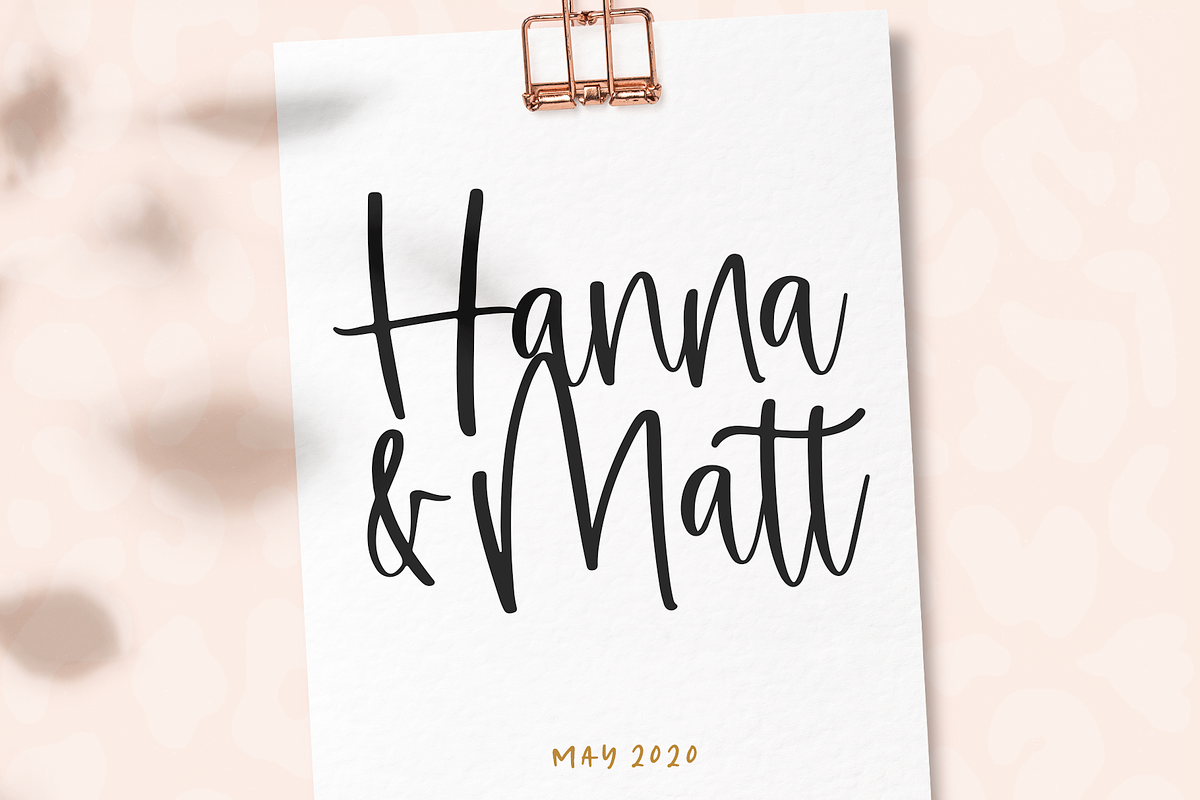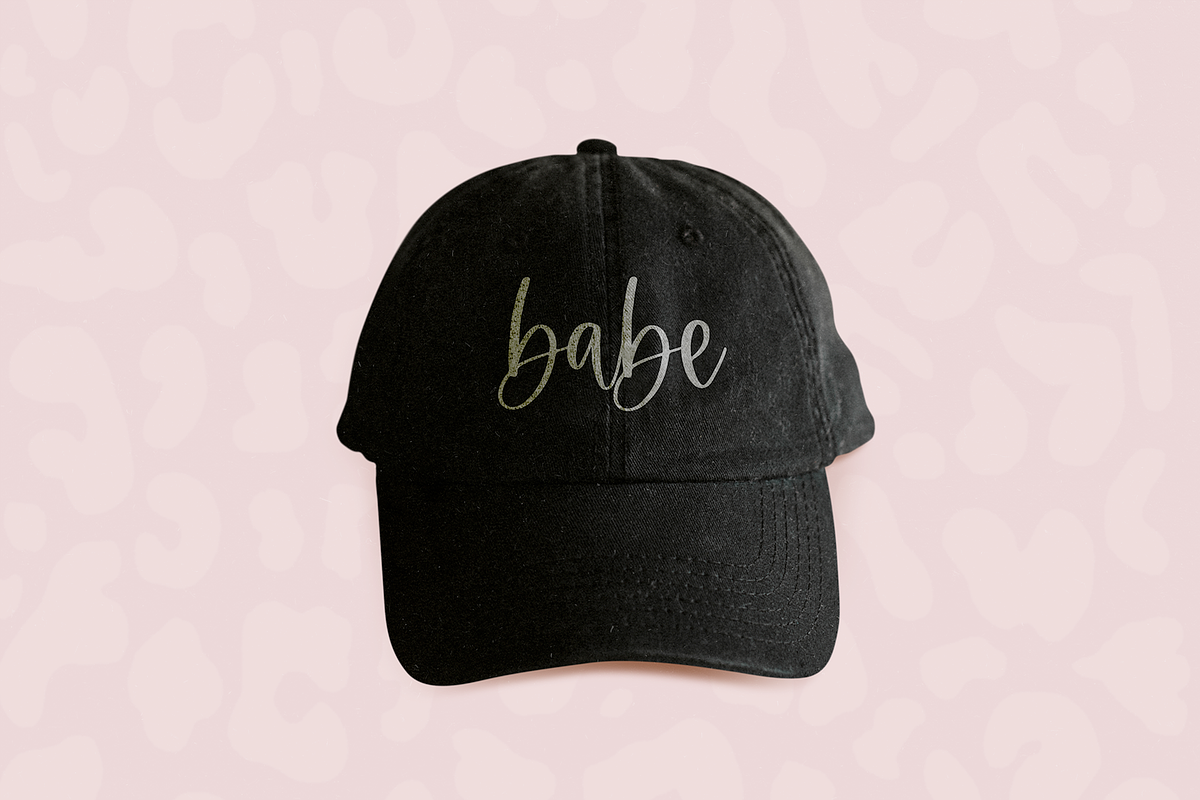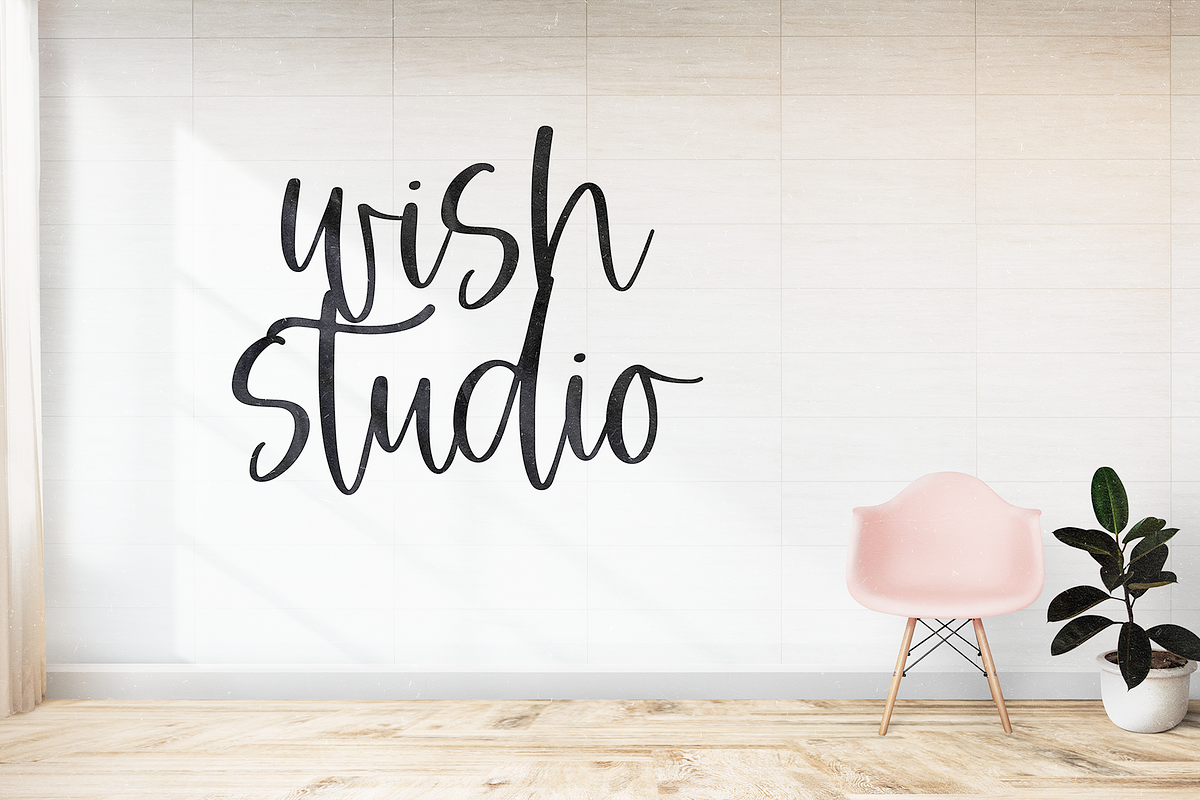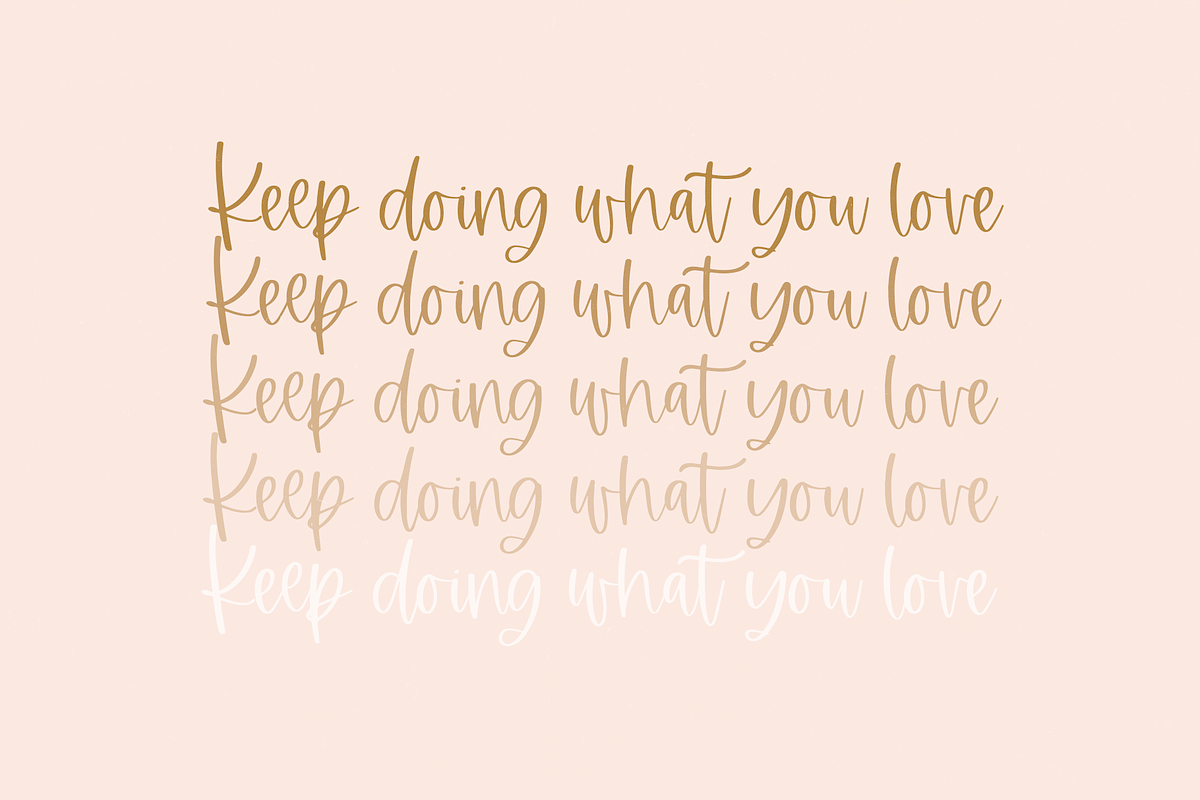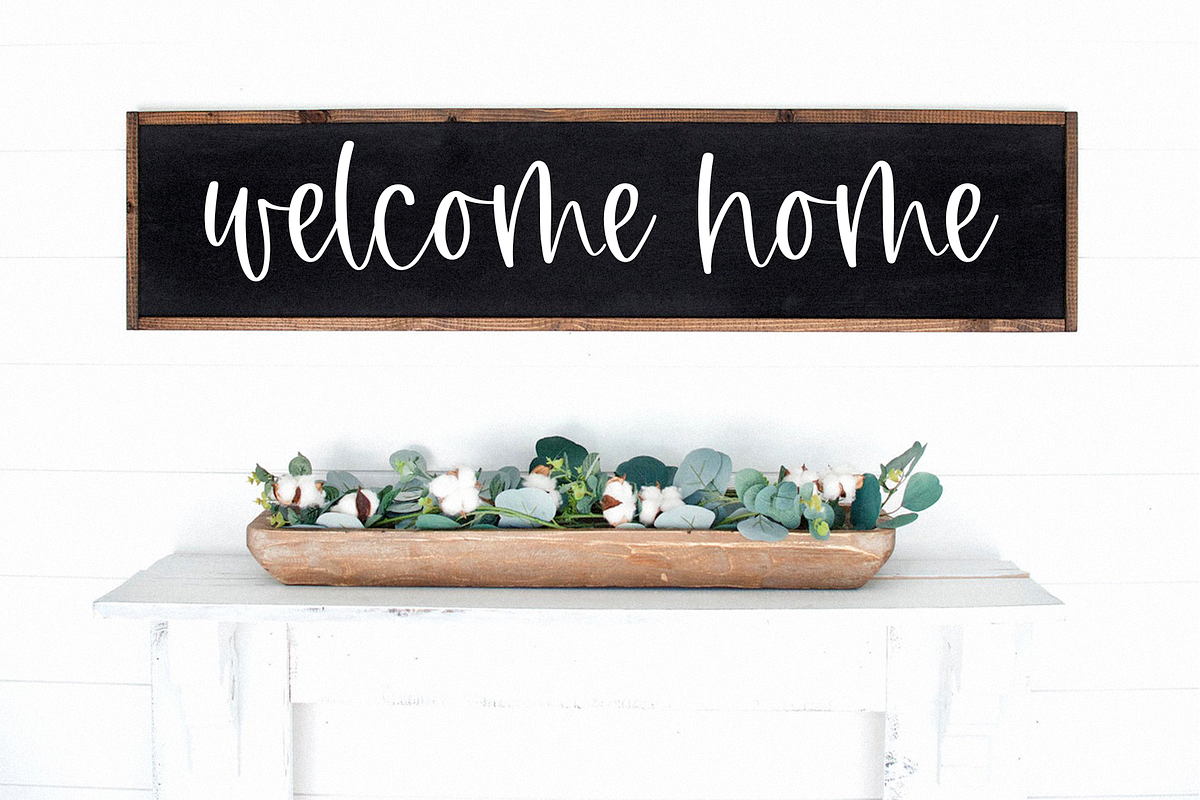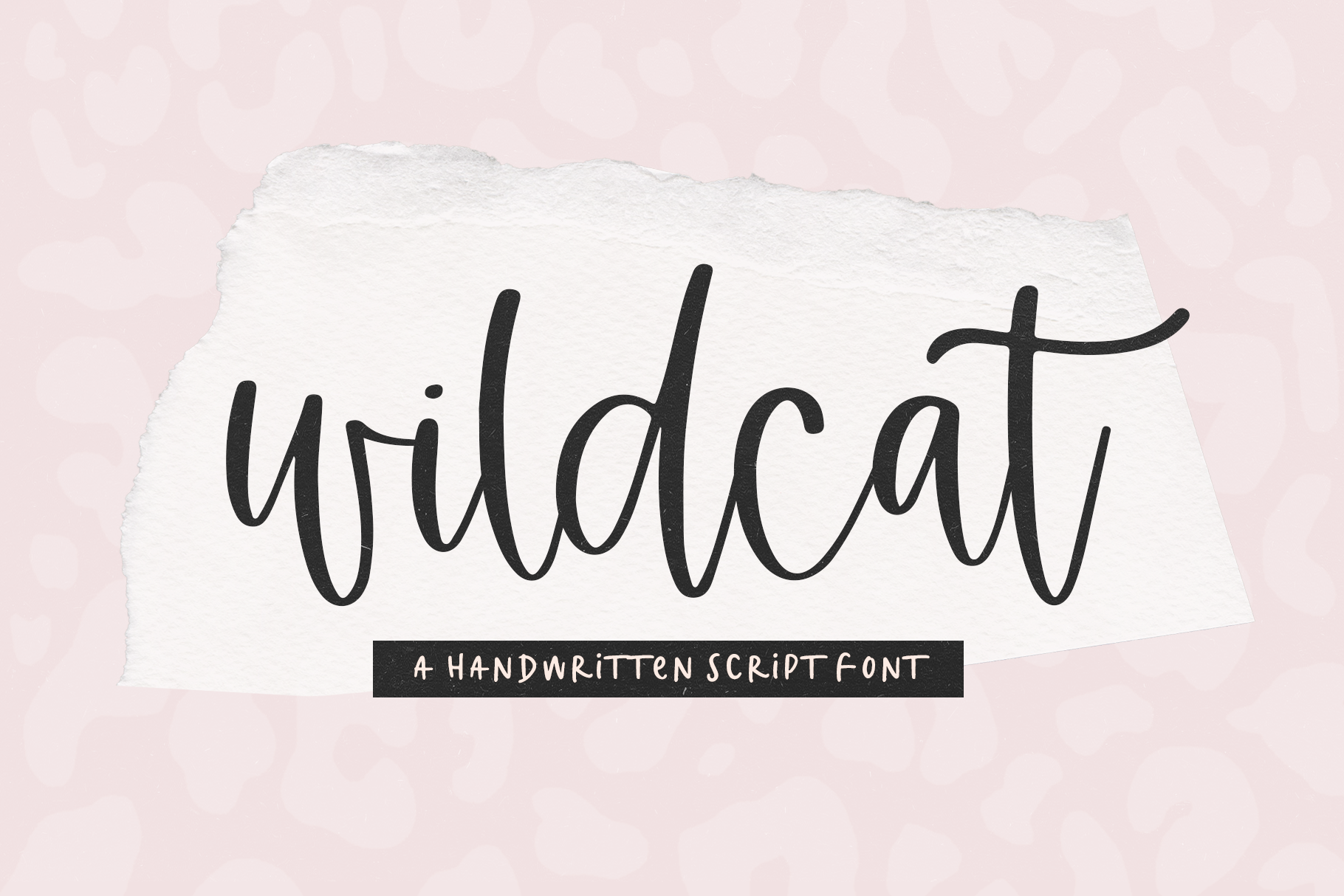
Wildcat | Handwritten Script Font
Wildcat is a handwritten script font in a modern style!
This font is perfect for branding, logos, invitations, business cards, web, instagram, social media, quotes, prints, wall decor, cricut projects, and more!
Most accent letters included.